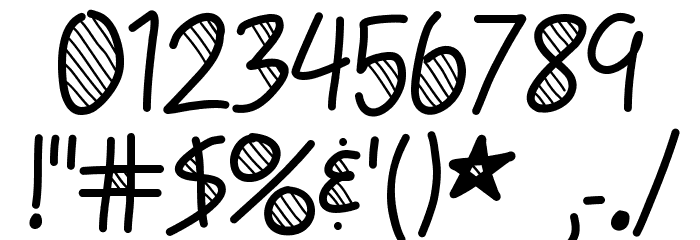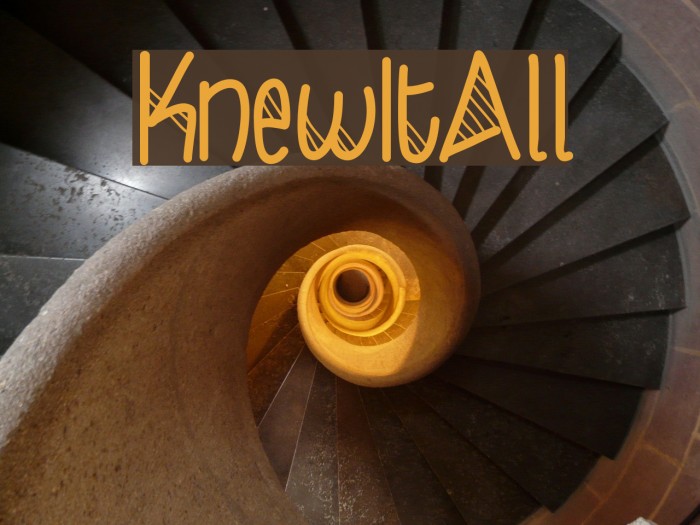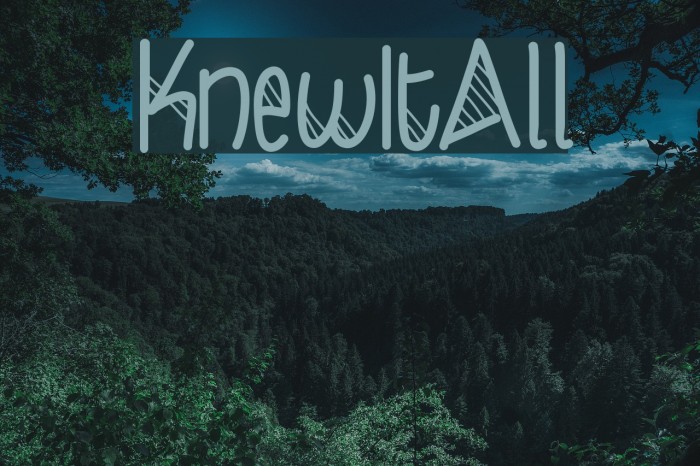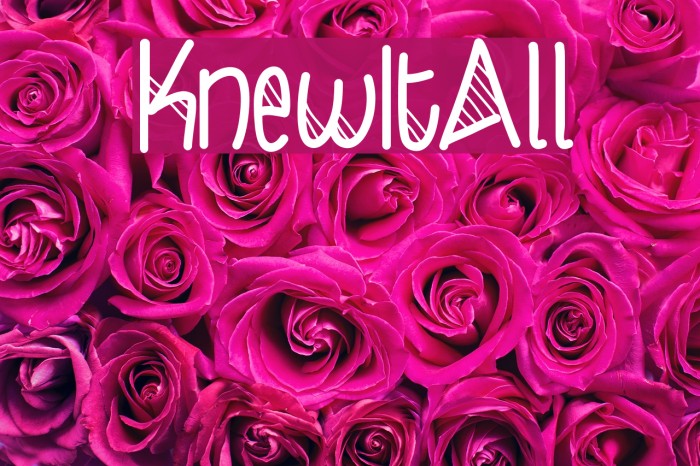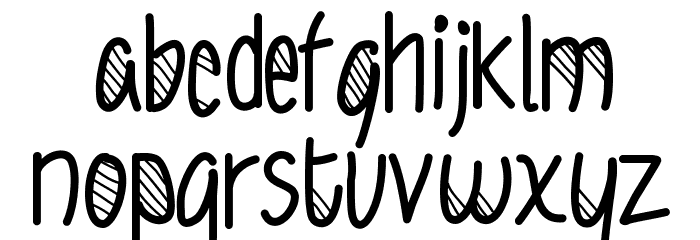
KnewItAll Font
This playful and whimsical font features a hand-drawn style with a casual, informal appearance. The uppercase letters are bold and slightly irregular, with some characters incorporating unique patterns such as stripes. The lowercase letters maintain a consistent style, complementing the uppercase with a similar quirky charm. Numbers and special characters follow the same playful design, making the font versatile for creative projects. The overall look is engaging and friendly, ideal for capturing attention in a fun and lighthearted way.
A playful, hand-drawn font with a whimsical and informal style.
• Proposed Projects: Ideal for children's books, playful branding, greeting cards, and creative posters.
• Category: Handwritten
• Overall Style: Decorative
• Use Case: Headlines, Logos, Posters